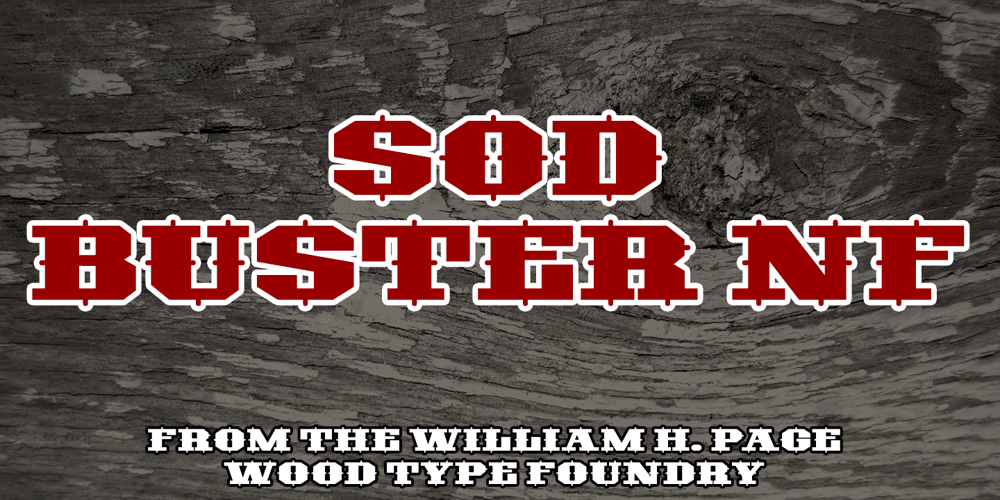
Sodbuster NF Font Family was designed by published by Nick’s Fonts. Sodbuster NF contains 1 styles and family package options. Another William H. Page classic, Gothic Dotted, provided the pattern for this bold and brassy typeface. Both versions of this font support the Latin 1262, Central European 1250, Turkish 1254 and Baltic 1257 codepages.